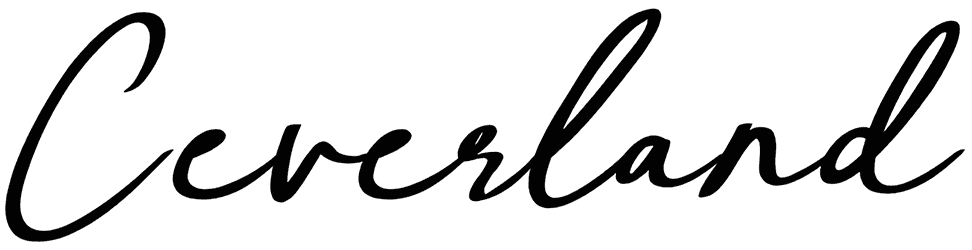
Ceverland Font
Good news for script font lovers: Ceverland is at your fingertip now! This case is coming in narrow and flowing characters. It can be a perfect font for many content needs like logos, branding, cosmetic products, and so on. Keep in mind that it’s not that legible and lacks punctuation. Download it like a shot and inspire your clients.